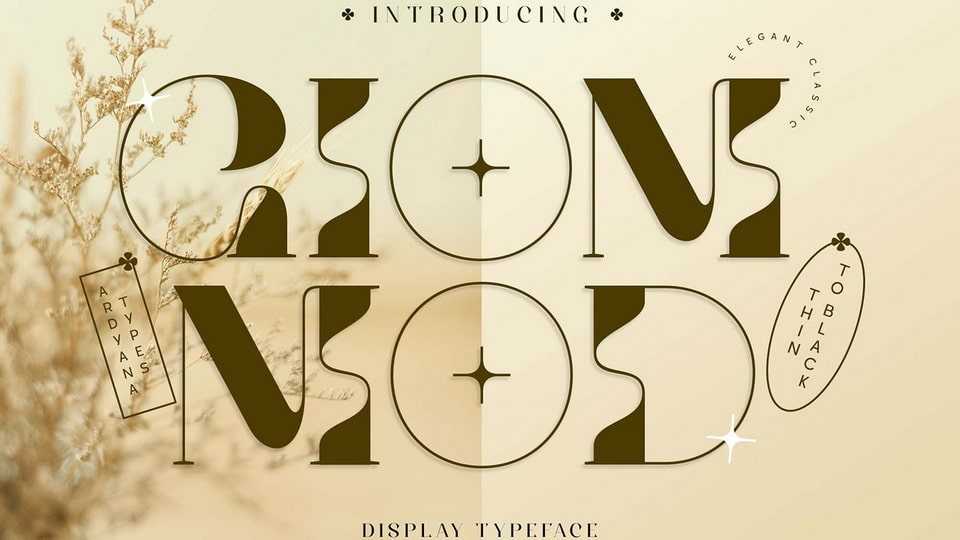
Giom Mod Font › Fontesk – Download Grátis
Download Giom Mod font, a unique and elegant display typeface with a distinctive serif style. With Giom Mod font you can create more engaging and unique text elements in your designs.
Designer: Ardyana Types